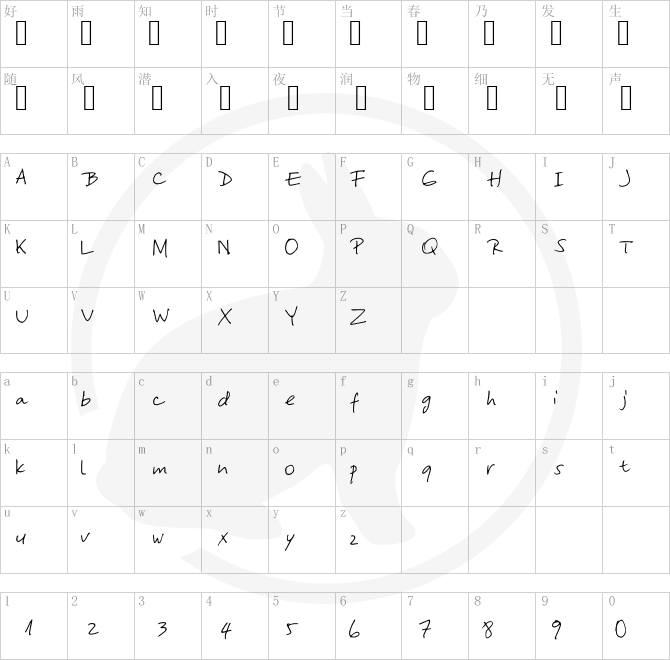
- Font Name:Yasna's Hand
Yasna-s-Hand-Medium.ttf is a very beautiful artistic font, Yasna-s-Hand-Medium.ttf is widely used in the design and printing of various books and pictures,Yasna-s-Hand-Medium.ttf has a strong visual impact,Yasna-s-Hand-Medium.ttf is a commonly used font in newspapers, magazines and books, and is used in posters, e-commerce Poster design, store design, logo design, font design and other fields.Yasna-s-Hand-Medium.